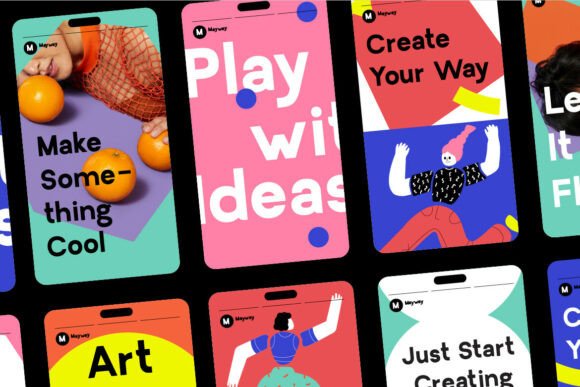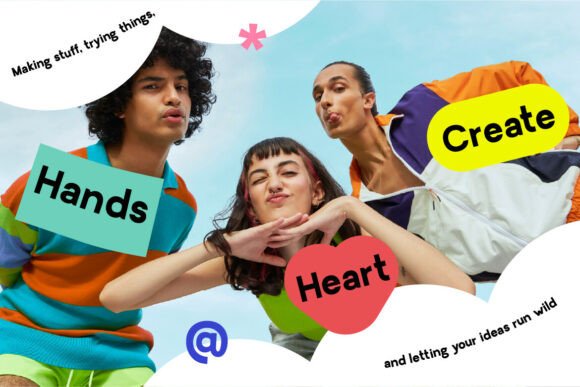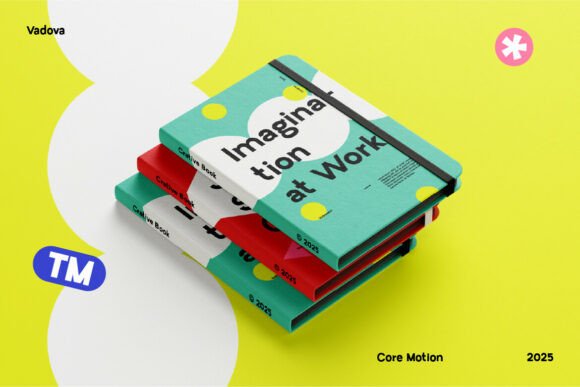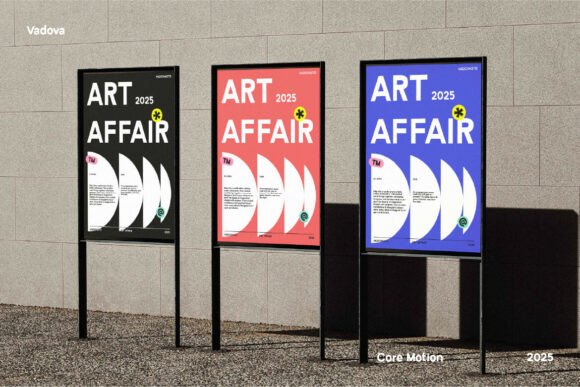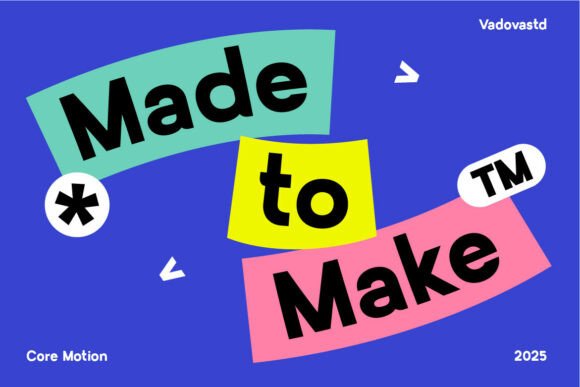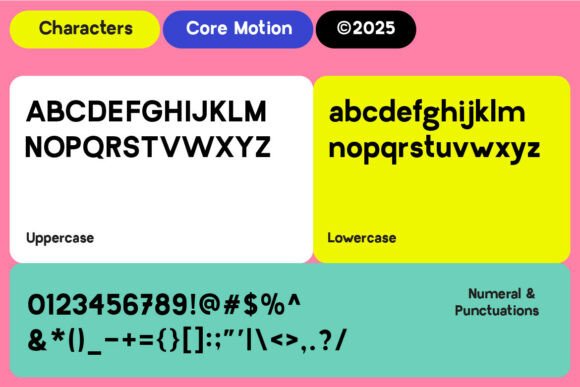
Introducing Core Motion Font: The Ultimate Typeface for High-Energy Visual Communication
In the world of typography, fonts play a crucial role in conveying the tone and personality of a brand or design. For creative professionals, finding the right typeface can make all the difference in bringing their ideas to life. This is where Core Motion Font comes in – a bold and vibrant sans-serif typeface designed specifically for high-energy visual communication.
What is Core Motion Font?
Core Motion Font is a modern sans-serif typeface that exudes playfulness and energy. Its striking geometric balance and bold letterforms make it perfect for digital campaigns, creative branding, event posters, and modern packaging. With its unique character, Core Motion Font is designed to thrive in colorful, movement-driven layouts, making it ideal for projects that require a fun, bold, and expressive personality.
Key Features of Core Motion Font
- Bold and Vibrant: Core Motion Font features bold and vibrant letterforms that are sure to grab attention.
- Playful Letterforms: The typeface boasts playful letterforms that add a touch of fun and personality to any design.
- Striking Geometric Balance: The font’s geometric balance provides a sense of stability and harmony, making it perfect for a wide range of design applications.
- High-Energy Visual Communication: Core Motion Font is designed specifically for high-energy visual communication, making it ideal for projects that require a bold and expressive personality.
Use Cases for Core Motion Font
Core Motion Font is a versatile typeface that can be used in a variety of design applications, including:
- Digital Campaigns: Use Core Motion Font to create eye-catching digital ads that grab attention and drive engagement.
- Creative Branding: Establish a bold and playful brand identity with Core Motion Font, perfect for companies that want to stand out from the crowd.
- Event Posters: Create stunning event posters that showcase the energy and excitement of your event with Core Motion Font.
- Modern Packaging: Add a touch of personality to your product packaging with Core Motion Font, perfect for brands that want to make a statement.
- Apps and Advertising: Use Core Motion Font to create engaging app interfaces and advertisements that capture the attention of your target audience.
- Artistic Concepts: Bring your artistic concepts to life with Core Motion Font, perfect for designers who want to add a touch of personality to their work.
Why Choose Core Motion Font?
With so many typefaces available, why choose Core Motion Font? Here are just a few reasons why designers and crafters love this bold and vibrant typeface:
- Unique Personality: Core Motion Font has a unique personality that sets it apart from other typefaces.
- High-Energy Visuals: The typeface is designed specifically for high-energy visual communication, making it perfect for projects that require a bold and expressive personality.
- Versatility: Core Motion Font can be used in a wide range of design applications, from digital campaigns to artistic concepts.
- Easy to Read: Despite its bold and playful nature, Core Motion Font is easy to read, making it perfect for body text and headlines.
In conclusion, Core Motion Font is a bold and vibrant sans-serif typeface designed specifically for high-energy visual communication. With its playful letterforms, striking geometric balance, and unique personality, it’s perfect for designers and crafters who want to bring their ideas to life with style and energy. Whether you’re working on a digital campaign, creative branding project, or artistic concept, Core Motion Font is the perfect choice for adding a touch of fun and personality to your design.